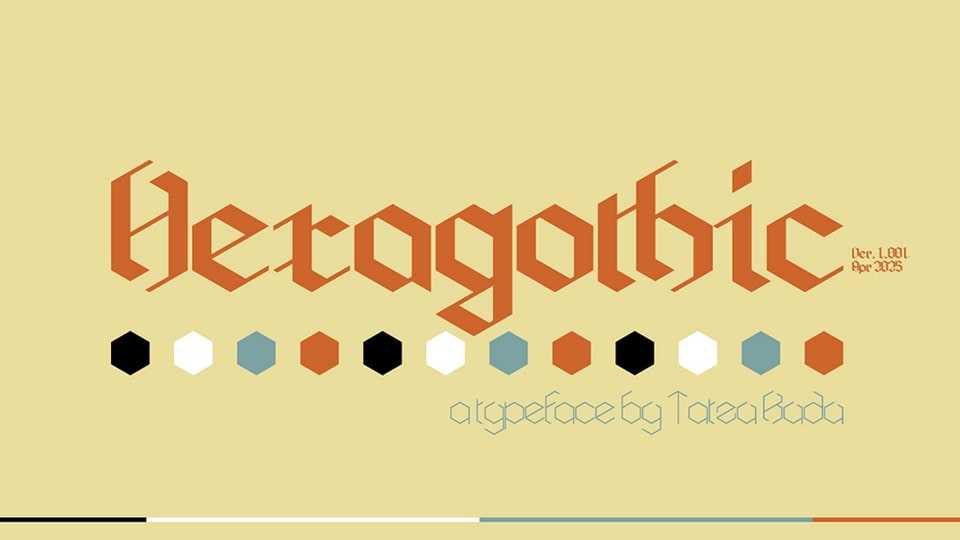
Download Hexagothic font, a futuristic and experimental typeface where molecular aesthetics meet typographic elegance, inspired by molecular structures in chemistry.
Designer: Zihan Li